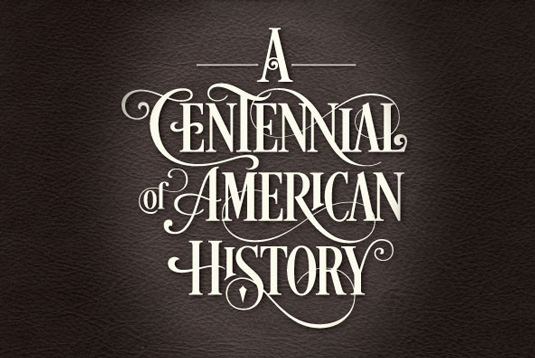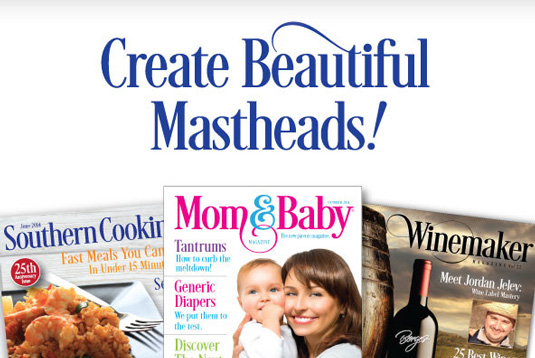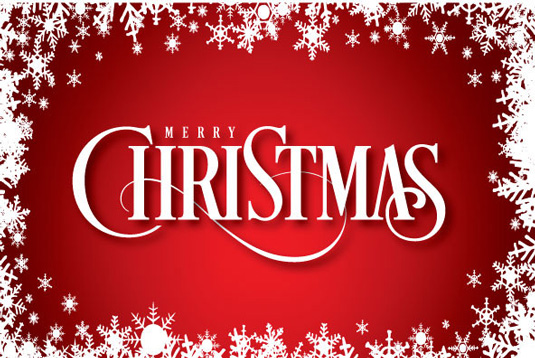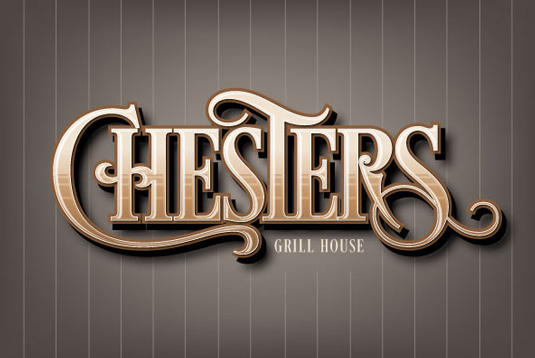
Font of the day: Desire
Every day we showcase the best fonts on the web. Today it's Desire by Charles Borges de Oliveira.
Desire by Charles Borges de Oliveira
Charles Borges de Oliveira is a lettering artist and a type designer at Borges Lettering. He is also the man behind today's beautiful font of choice Desire. The design features 644 alternate letters, 98 ligatures, 8 flourishes and 6 catchwords, offering an expansive set of options to create logos, headlines and titling.